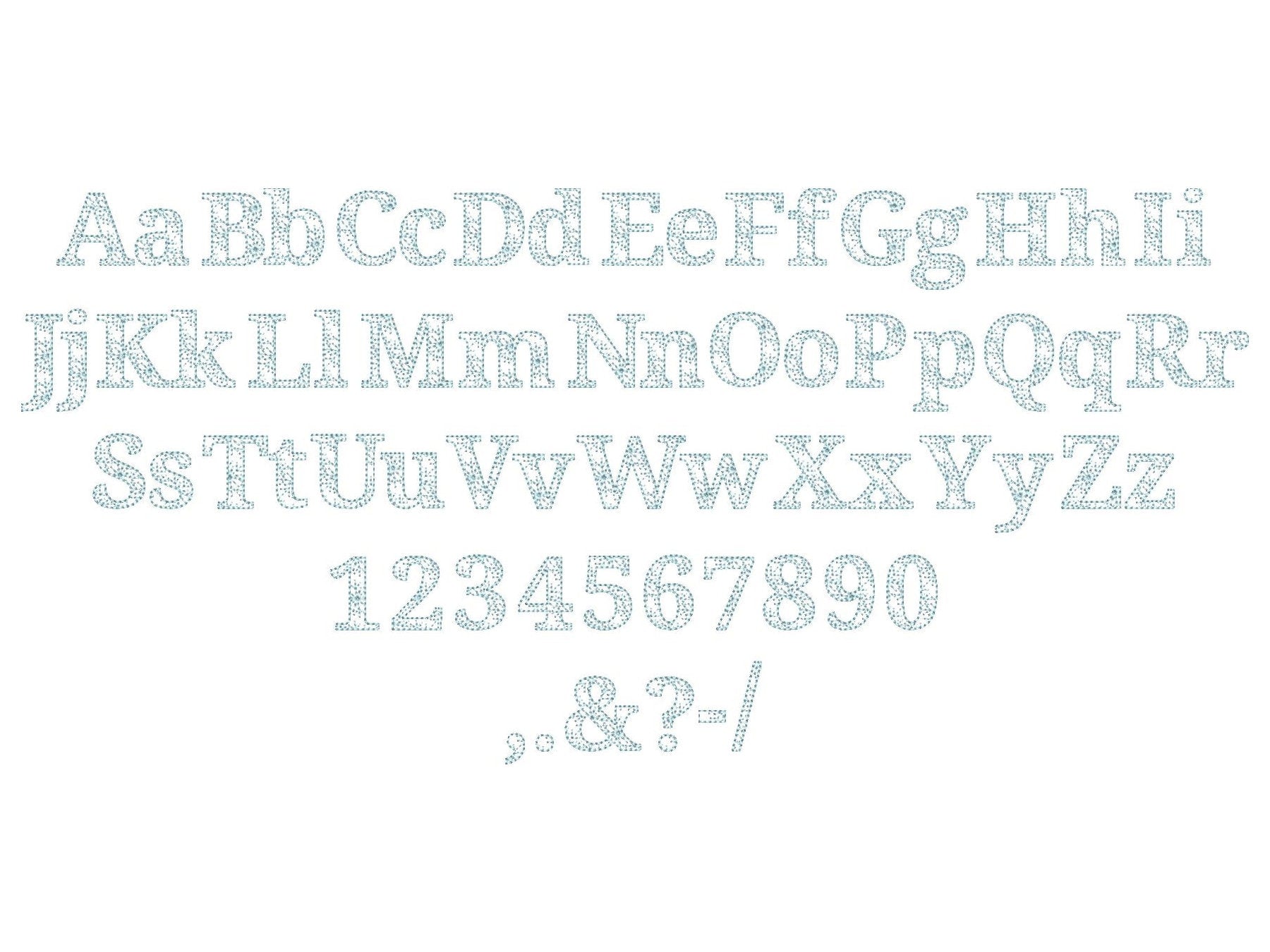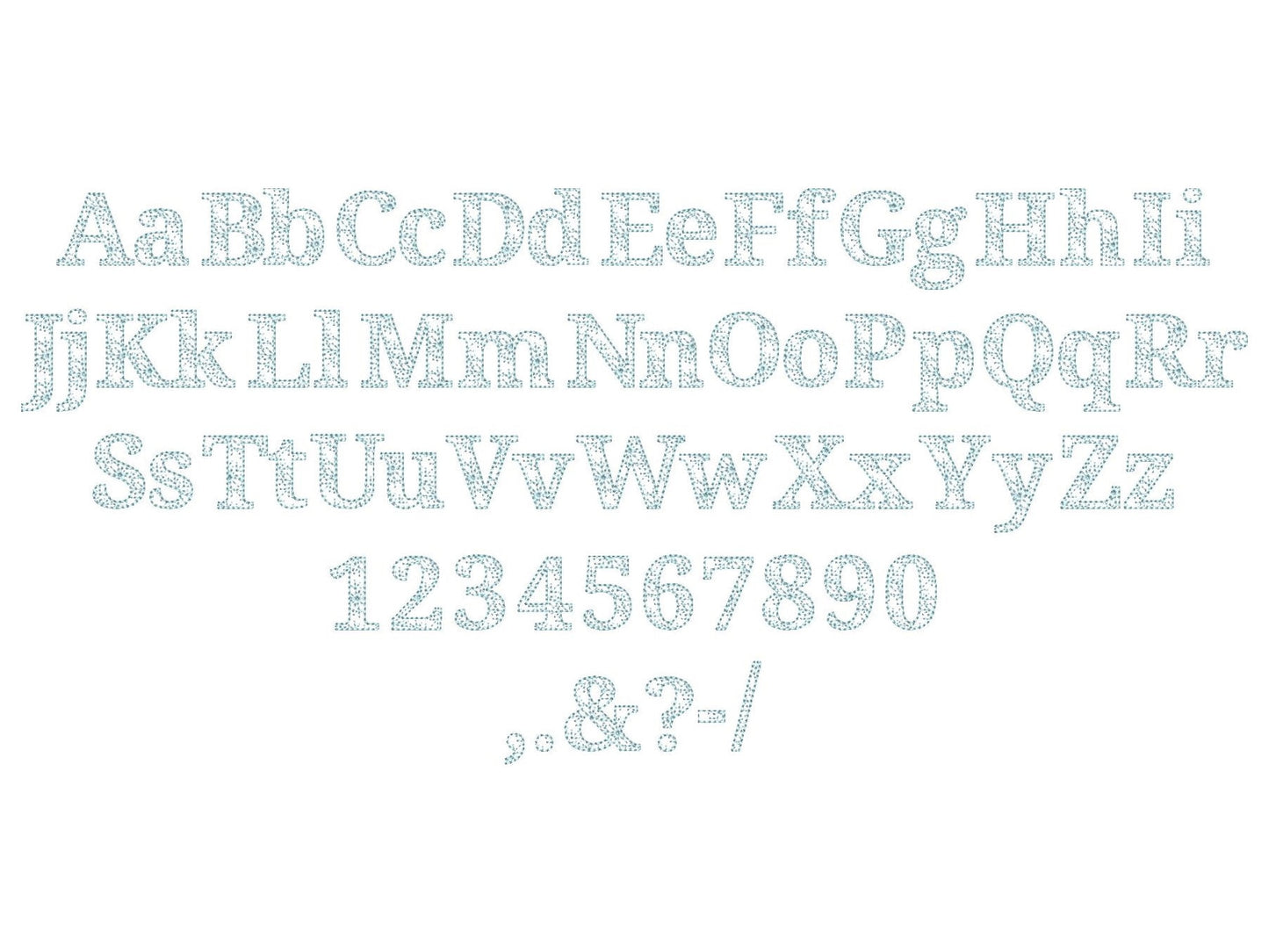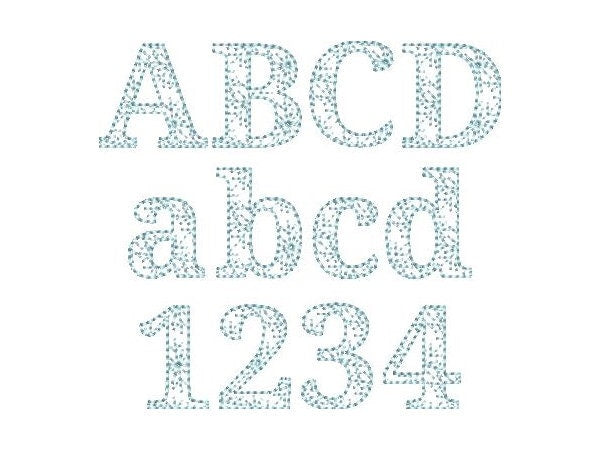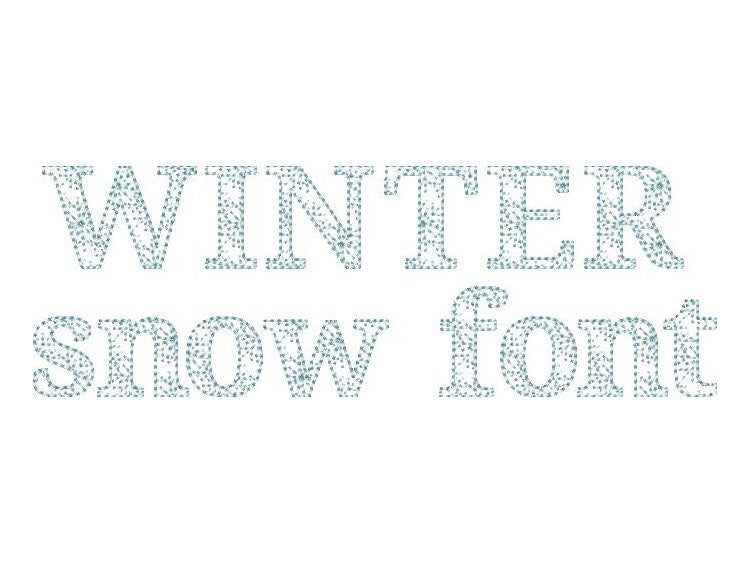
Winter Snowflake Block Font Light Stitch
Or click to open the linkA light stitch snowflake block font that looks like lace. Quick and pretty for winter sweaters, Christmas stockings, ornaments and small names.
Uppercase and lowercase letters, numbers 0 to 9 and punctuation, in seven mini sizes: 0.7, 0.8, 0.9, 1.1, 1.3, 1.5 and 1.8 inches. Quick sketch-style stitching lets the fabric show through.
- Light stitch snowflake block font
- Uppercase and lowercase letters, numbers 0-9, punctuation